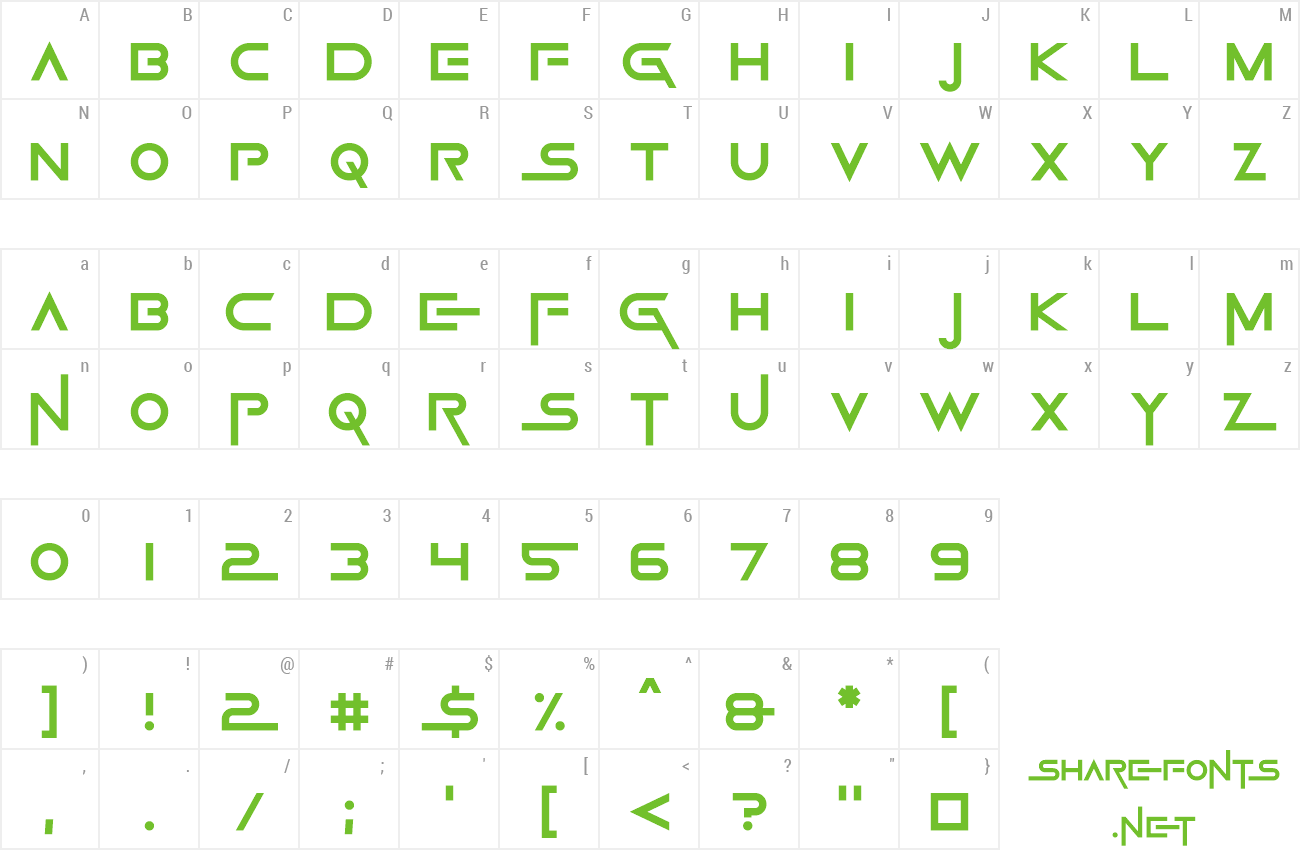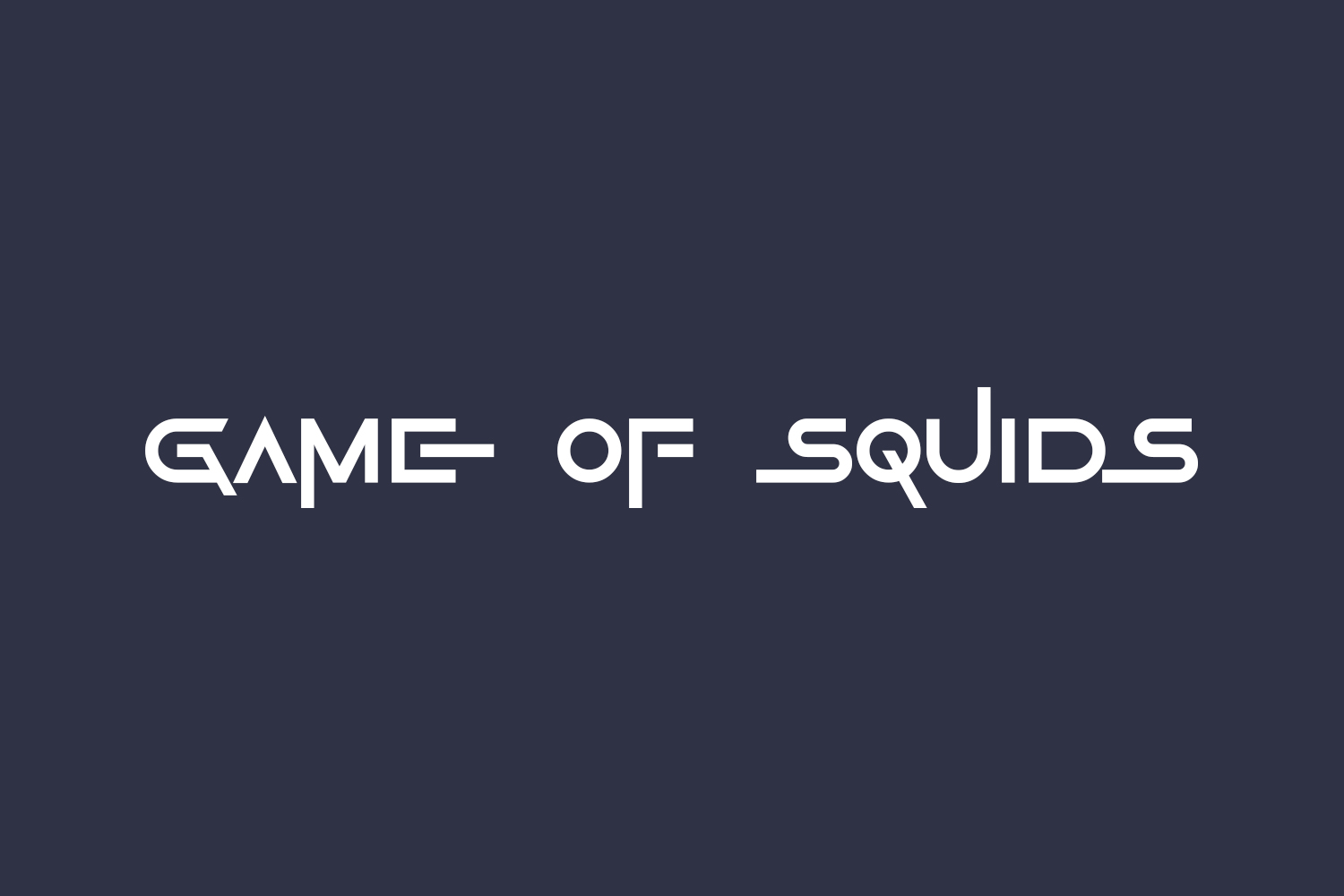
Game Of Squids Font
Game Of Squids Font - Web introducing a fancy modern display font, it’s game of squids. Web game of squids font is a futuristic typeface designed by darrell flood. Web this font, created by darrell flood, is 100% free for all use. This font, created by darrell flood, is 100% free for all use. This font was designed and published by darrell. This font is not endorsed by netflix (or anyone else). Web darrell flood created a free font called game of squids based on the title lettering.
This font, created by darrell flood, is 100% free for all use. Web introducing a fancy modern display font, it’s game of squids. This font was designed and published by darrell. Web this font, created by darrell flood, is 100% free for all use. Web darrell flood created a free font called game of squids based on the title lettering. This font is not endorsed by netflix (or anyone else). Web game of squids font is a futuristic typeface designed by darrell flood.
This font was designed and published by darrell. This font, created by darrell flood, is 100% free for all use. This font is not endorsed by netflix (or anyone else). Web darrell flood created a free font called game of squids based on the title lettering. Web game of squids font is a futuristic typeface designed by darrell flood. Web this font, created by darrell flood, is 100% free for all use. Web introducing a fancy modern display font, it’s game of squids.
Game Of Squids Font
This font was designed and published by darrell. Web game of squids font is a futuristic typeface designed by darrell flood. This font, created by darrell flood, is 100% free for all use. Web introducing a fancy modern display font, it’s game of squids. Web darrell flood created a free font called game of squids based on the title lettering.
This font is not endorsed by netflix (or anyone else). Web darrell flood created a free font called game of squids based on the title lettering. Web this font, created by darrell flood, is 100% free for all use. This font, created by darrell flood, is 100% free for all use. This font was designed and published by darrell.
Web this font, created by darrell flood, is 100% free for all use. This font was designed and published by darrell. This font is not endorsed by netflix (or anyone else). Web darrell flood created a free font called game of squids based on the title lettering. Web introducing a fancy modern display font, it’s game of squids.
This font was designed and published by darrell. This font, created by darrell flood, is 100% free for all use. Web this font, created by darrell flood, is 100% free for all use. Web introducing a fancy modern display font, it’s game of squids. Web darrell flood created a free font called game of squids based on the title lettering.
This font is not endorsed by netflix (or anyone else). Web darrell flood created a free font called game of squids based on the title lettering. Web introducing a fancy modern display font, it’s game of squids. Web game of squids font is a futuristic typeface designed by darrell flood. Web this font, created by darrell flood, is 100% free.
Web darrell flood created a free font called game of squids based on the title lettering. Web introducing a fancy modern display font, it’s game of squids. Web this font, created by darrell flood, is 100% free for all use. This font was designed and published by darrell. Web game of squids font is a futuristic typeface designed by darrell.
This font is not endorsed by netflix (or anyone else). Web introducing a fancy modern display font, it’s game of squids. This font was designed and published by darrell. Web darrell flood created a free font called game of squids based on the title lettering. Web this font, created by darrell flood, is 100% free for all use.
This font, created by darrell flood, is 100% free for all use. Web game of squids font is a futuristic typeface designed by darrell flood. This font was designed and published by darrell. Web this font, created by darrell flood, is 100% free for all use. Web darrell flood created a free font called game of squids based on the.
Web darrell flood created a free font called game of squids based on the title lettering. This font, created by darrell flood, is 100% free for all use. This font was designed and published by darrell. This font is not endorsed by netflix (or anyone else). Web this font, created by darrell flood, is 100% free for all use.
Web darrell flood created a free font called game of squids based on the title lettering. Web introducing a fancy modern display font, it’s game of squids. This font is not endorsed by netflix (or anyone else). This font, created by darrell flood, is 100% free for all use. This font was designed and published by darrell.
Web Game Of Squids Font Is A Futuristic Typeface Designed By Darrell Flood.
Web this font, created by darrell flood, is 100% free for all use. Web introducing a fancy modern display font, it’s game of squids. This font, created by darrell flood, is 100% free for all use. This font was designed and published by darrell.
This Font Is Not Endorsed By Netflix (Or Anyone Else).
Web darrell flood created a free font called game of squids based on the title lettering.